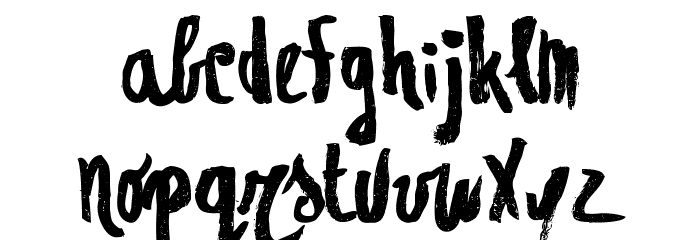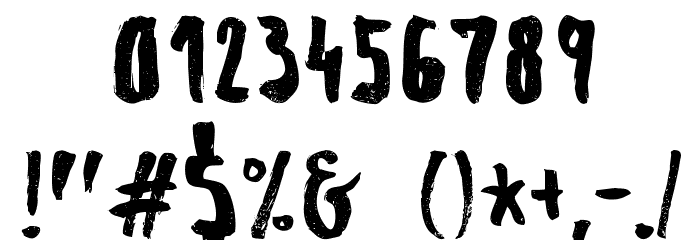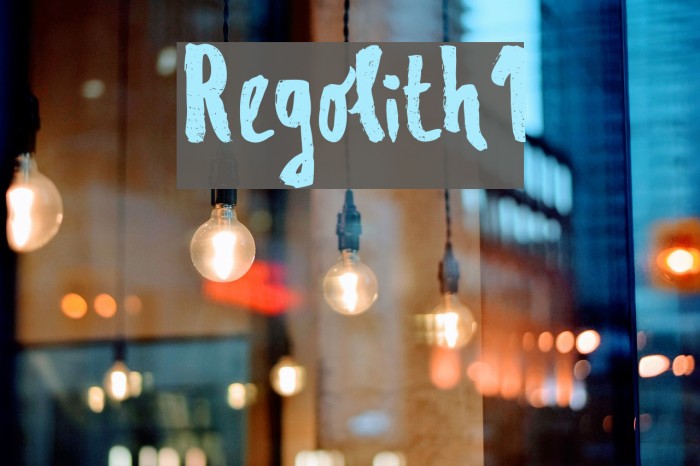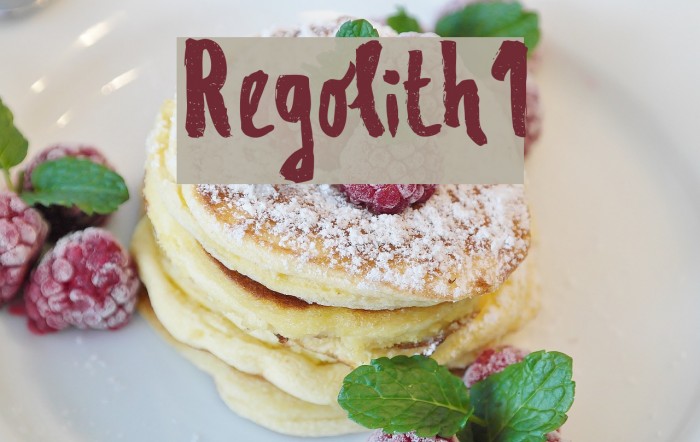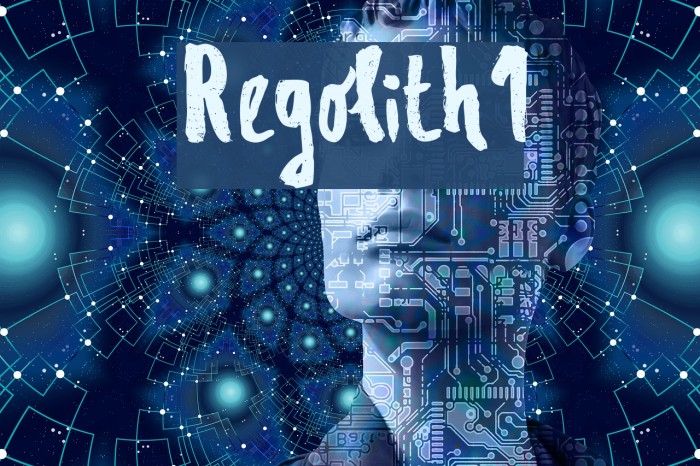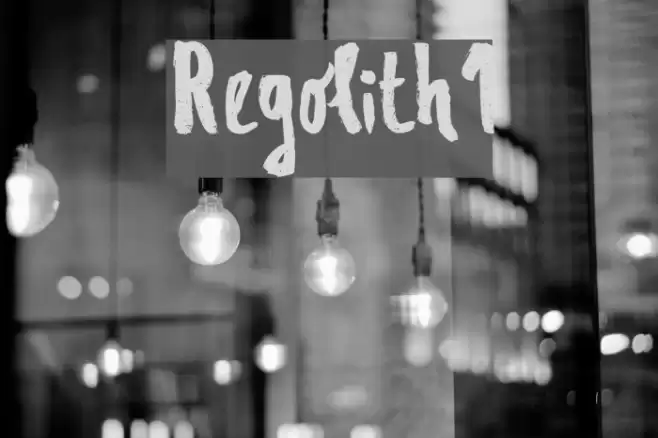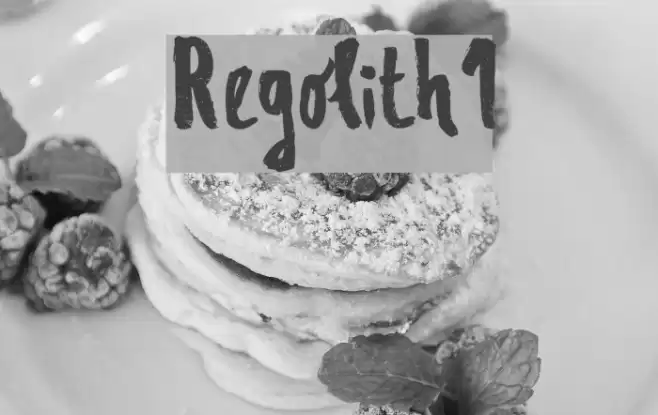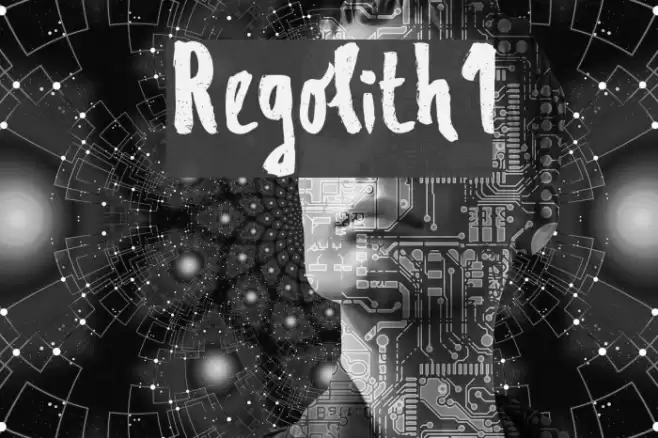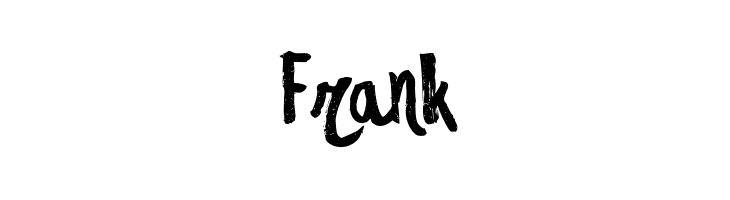
Regolith1 Font
This font features a bold, textured style that gives it a rugged, hand-painted appearance. The characters are uneven and have a distressed look, with varying stroke thickness that adds to its organic feel. The uppercase letters are tall and commanding, while the lowercase letters maintain a consistent style with a slightly more casual touch. Numbers and special characters follow the same aesthetic, providing a cohesive look across all elements. The font's unique, artistic flair makes it stand out, perfect for projects that require a strong visual impact.
A bold, textured font with a rugged, hand-painted appearance.
- Proposed Projects: Ideal for posters, album covers, branding projects, and any design that requires a bold, artistic touch.